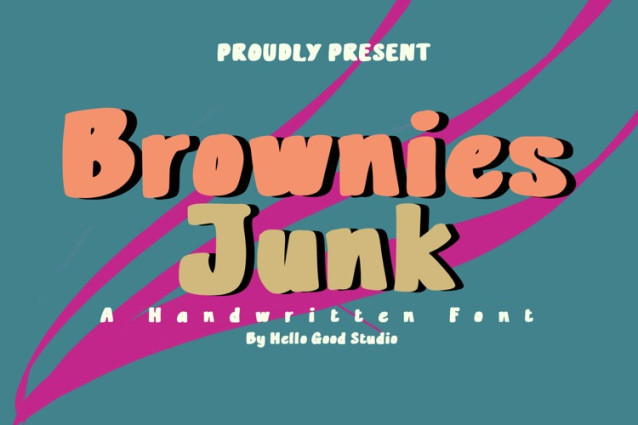
Brownies Junk Font
Brownies Junk Font a uniquely crafted font by Studio Hello Good. This typeface perfectly blends the nostalgia of retro aesthetics with the organic warmth of modern hand-lettering.